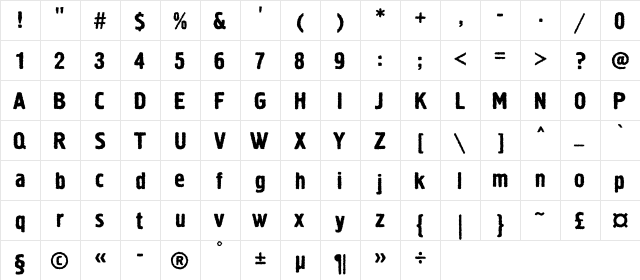
HermesRoughC Regular
Design Context for HermesRoughC Typeface
HermesRoughC trades polish for personality, using distressed and eroded forms to bring grit and attitude to creative work.
A strong fit for alternative music projects, graffiti-adjacent design, and anything that deliberately resists polish.
Pro Tip: Use HermesRoughC at larger sizes where the texture and irregularity of each letterform can be clearly seen — it loses its character at small sizes.